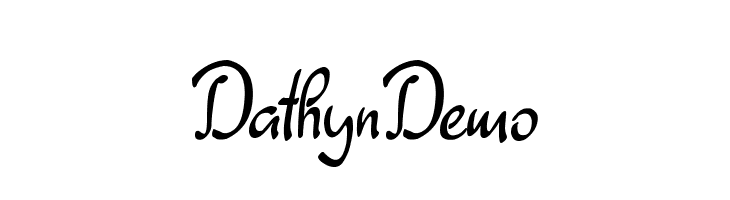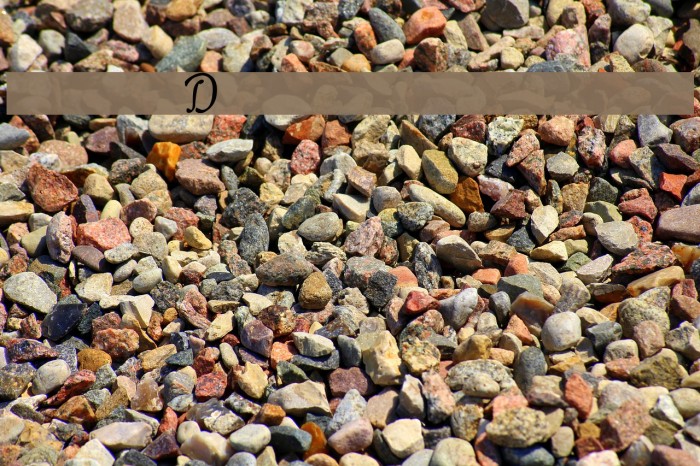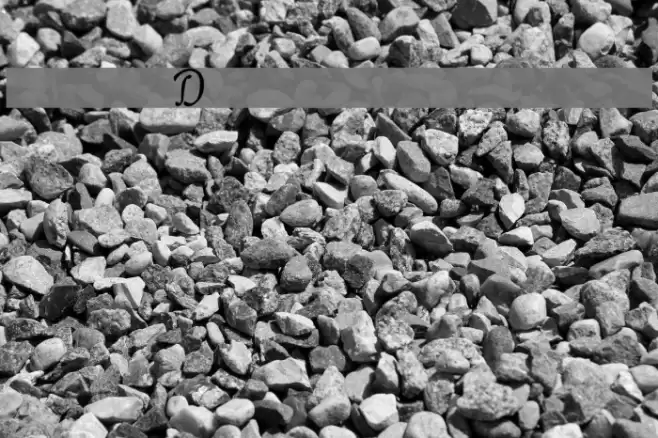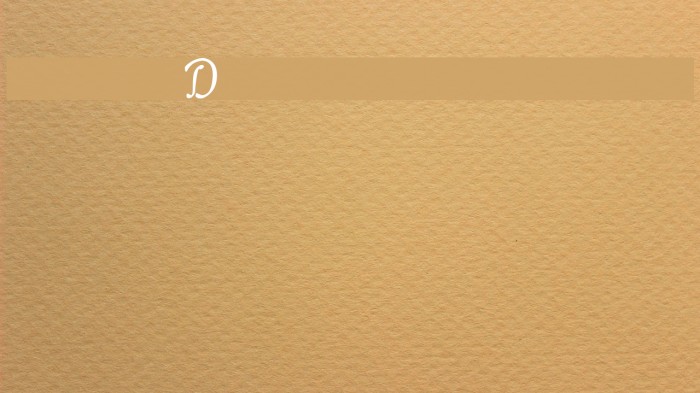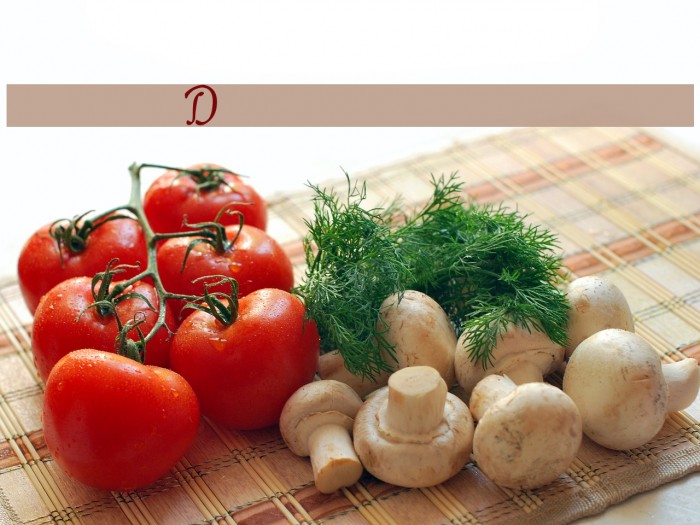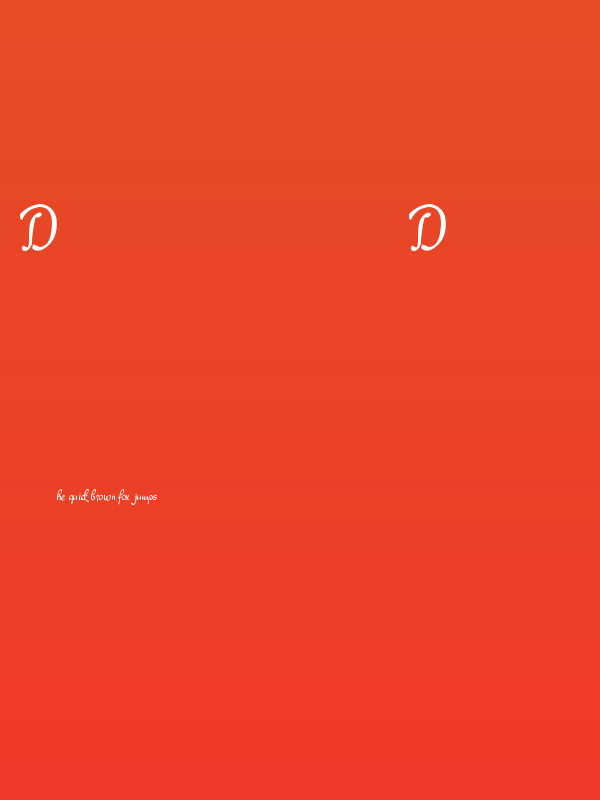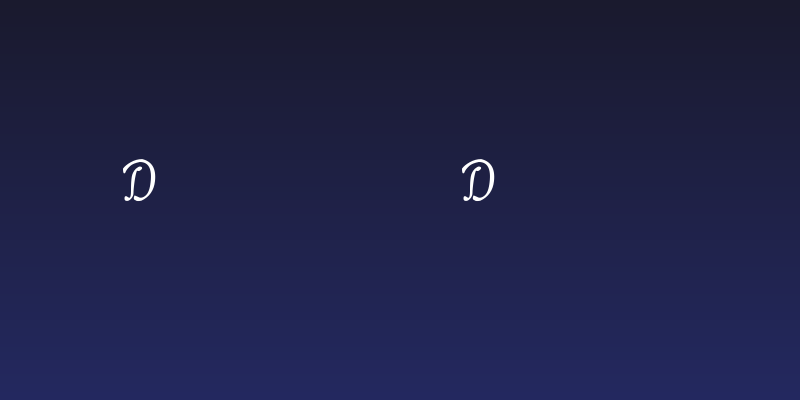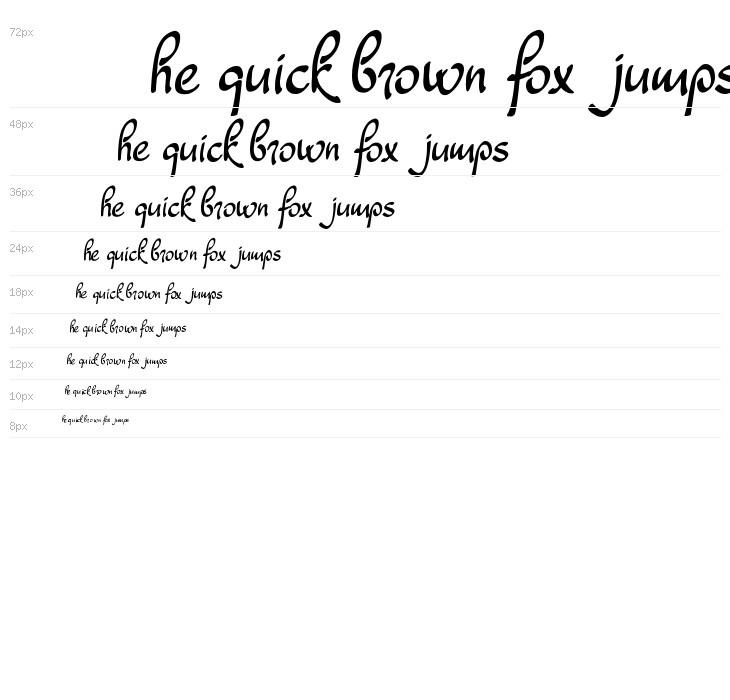
Dathyn Demo Font
Dathyn Demo Description
This font features a flowing, cursive style with elegant, sweeping curves and a handwritten appearance. The characters are connected, giving it a fluid and continuous look, reminiscent of traditional calligraphy. The strokes vary in thickness, adding a dynamic and artistic flair. The lowercase letters are particularly expressive, with unique loops and swirls that enhance its decorative quality. This font exudes a sense of sophistication and creativity, making it ideal for projects that require a personal touch.
| Proposed Projects | Ideal for wedding invitations, greeting cards, personal branding, and artistic projects. |